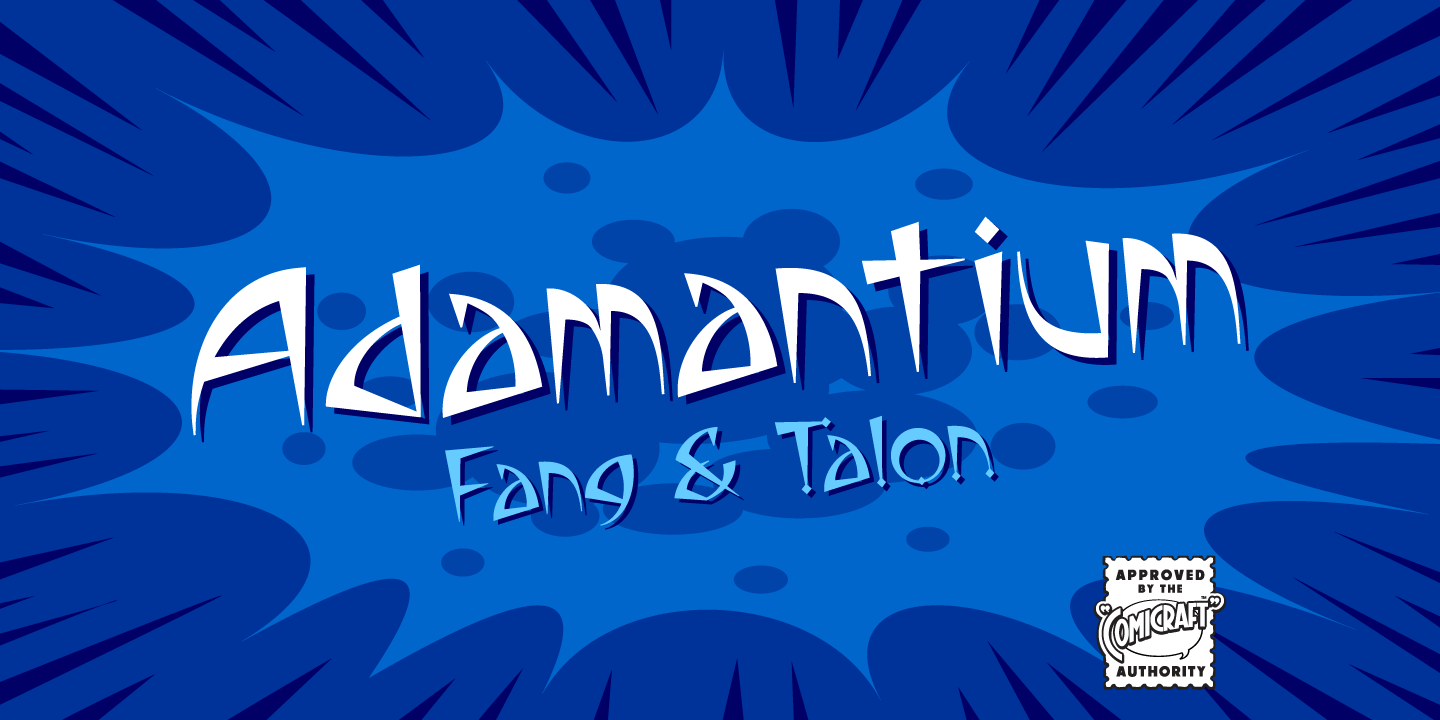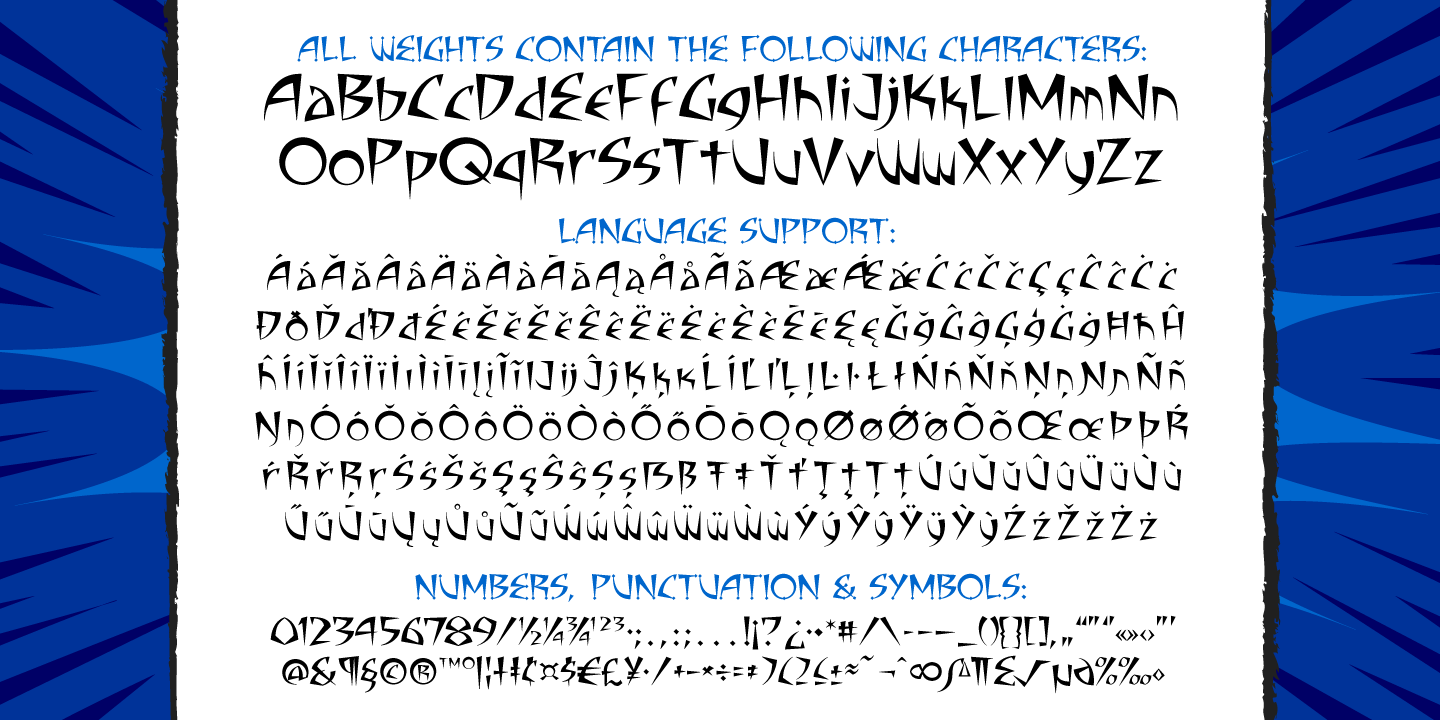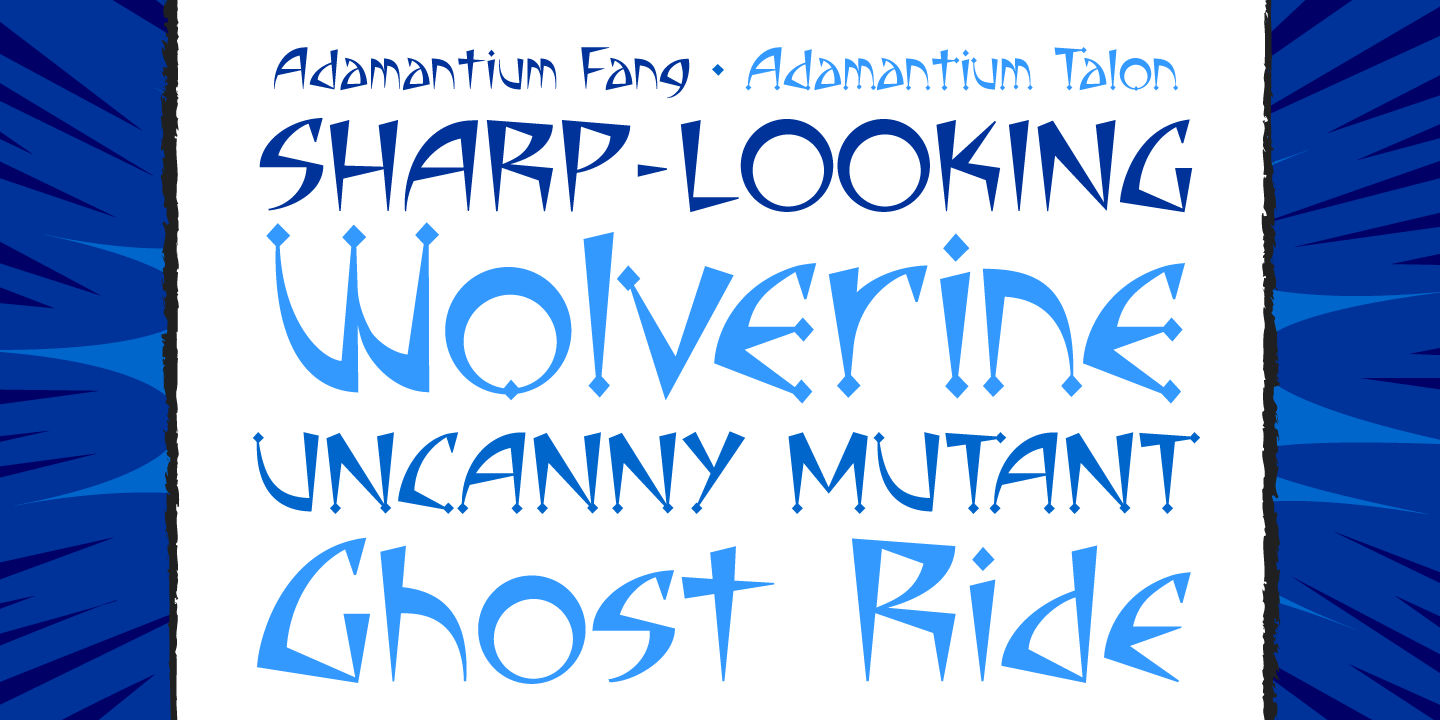
Adamantium
Font Family by Comicraft Fonts
Looking for sharp-looking characters in ferocious action? Then look no further than this font, originally designed by Senior Comicraftsman John Roshell for GHOST RIDER 2099. Adamantium has also been featured in WOLVERINE and THE UNCANNY X-MEN.